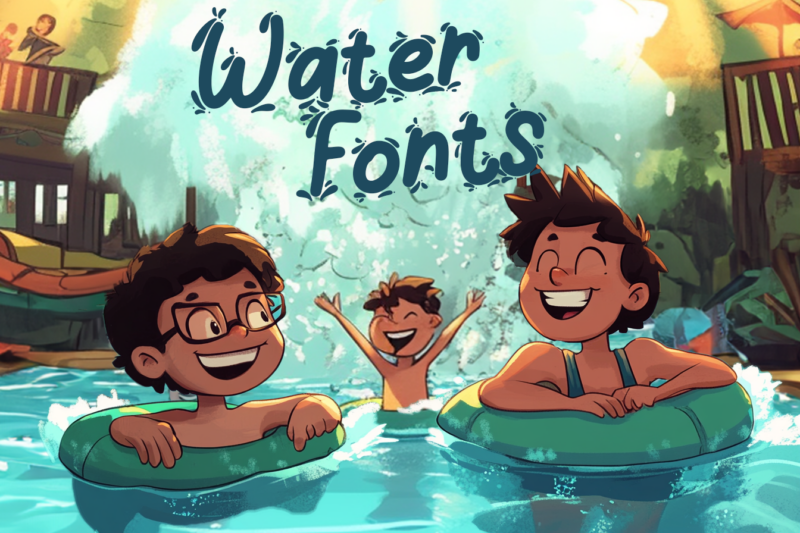
43 Water Fonts That Make a Real “Splash” in 2026
Add a splash of creativity to your design projects with water fonts—a fascinating typography trend that adds a touch of fluidity and style. Using these fonts, your designs can exude calmness, sophistication, and a modern flair. They’re perfect for anything from posters and branding to advertisements, offering versatile solutions.
Discover how choosing the right water font can add a striking and unique touch to your designs. With endless styles available, you’re sure to find one that fits your creative needs perfectly. These fonts not only enhance the visual appeal but also deliver a bold and refined look, making them an essential tool for any artistic project.
43 Flowingly Beautiful Water Fonts to Choose From
Hyper Bleach – Liquid Type
This liquid bubble display font adds fluidity and a dreamy aesthetic to creative projects. Perfect for a modern twist on posters, logos, or branding, with regular and bubble styles available in OTF and TTF.
Liquids – Cute Display
Quirky, splash-inspired letters bring water movement to life, perfect for logos, branding, or kids’ events. The pack includes uppercase, lowercase, numerals, and alternates in OTF and TTF formats, adding a fun and fluid feel to any design.
Retro Drip
Liquid-inspired with Y2K flair, this font channels streetwear and avant-garde style, ideal for brands setting trends. Its fluid shapes and bold design suit posters, fashion layouts, and quotes. Includes uppercase, lowercase, alternates, and multilingual support in TTF and OTF.
Dynamic Drips – Liquid Display Font Theme
Retro, bold, and playful with a psychedelic touch, this font is great for posters, branding, and digital art. All-caps style with numbers, punctuation, and multilingual support, available in TTF, OTF, and webfont formats.
Semulla – Trippy Liquid Font
Expressive, hand-drawn flow adds an edgy urban style, ideal for fashion-forward brands and posters. Standout letters appear as dry drips, making it great for stylish brand visuals and text overlays. Includes two weights, uppercase, lowercase, and multilingual support in TTF and OTF.
Rogena Splash – Rounded & Liquid Font
Casual charm and easy readability make this font a versatile choice for any context, whether busy backgrounds or standalone headlines. Works seamlessly across design platforms and includes PUA-encoded characters with multilingual support in OTF/TTF.
Brawner – Y2K Liquid Font
Wobbly, funky, and groovy, this Y2K-inspired typeface suits posters, logos, and branding with two styles for a playful twist. Features uppercase, lowercase, numbers, and punctuation, available in regular and outline styles in OTF and TTF formats.
Squidwod – Liquid Display Font
Bold and rounded with a liquid-inspired design, perfect for impactful branding projects like sports posters or logos. Available in OTF, TTF, and WOFF formats, making it versatile across various digital applications.
Lacupra – Liquid Bubble Display Font
Liquid-inspired with Y2K flair, this font channels streetwear and avant-garde style, ideal for brands setting trends. Its fluid shapes and bold design suit posters, fashion layouts, and quotes. Includes uppercase, lowercase, alternates, and multilingual support in TTF and OTF.
Soap Bubbles Font
Discover typography with a twist using the Soap Bubbles Font. This fun and cheerful style perfectly captures the whimsical feel of soap bubbles dancing in the air.
Waterlily Typeface
Waterlily Typeface has a watercolor-painted look with over 80 unique characters, supporting multiple languages for creative, personal projects.
Secret Water Simple Font
Secret Water Simple Font is a versatile sans serif font with a clean style, great for logos, print, and online publications.
Water Galon
Water Galon is a playful, cheerful display font perfect for fun projects like logos and posters, designed to stand out with its whimsical style.
Blurity – A Water Wave Font
Blurity captures the gentle sway of water, ideal for beach or summer themes with a refreshing, ocean-inspired vibe.
SpringRain SVG Watercolor Brush Font
SpringRain has a textured watercolor look, ideal for branding, greeting cards, and quotes that inspire with an artistic touch.
Water Brush Rough Font
To use water fonts effectively, match their unique characteristics with your design theme. This will ensure your text is easy to read while capturing the mood you want. Explore different options until you find one that truly fits your vision.